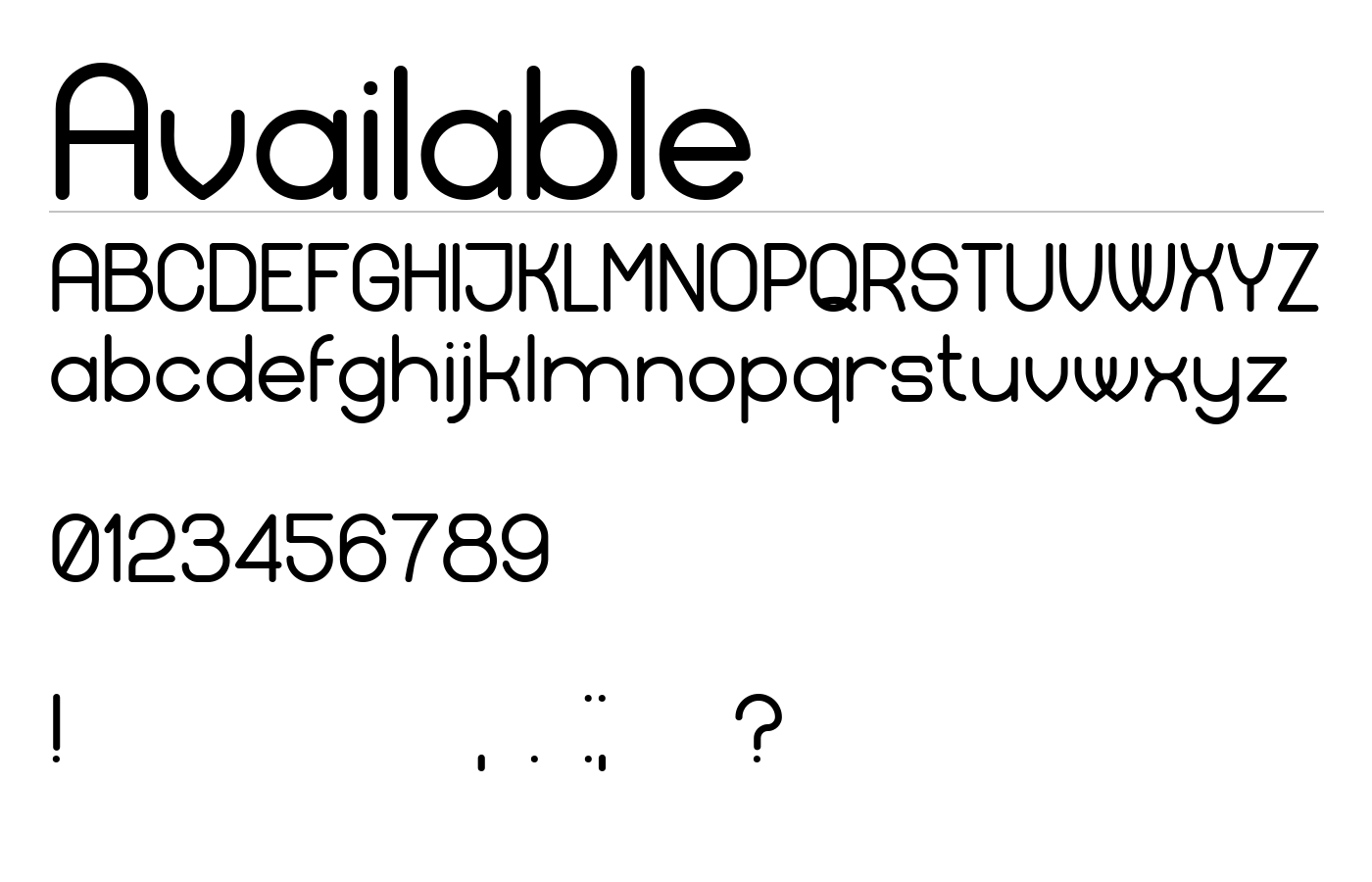
Available Font is a sleek, modern sans serif typeface characterized by its geometric shapes and consistent stroke weight, giving it a clean and minimal look. Its rounded terminals and open letterforms create a friendly and approachable style, making it ideal for contemporary branding, tech interfaces, and editorial headlines where clarity and simplicity are essential. This font works well in digital and print contexts, offering versatility for creative projects seeking a fresh, modern vibe.
Available Font
About Available Font